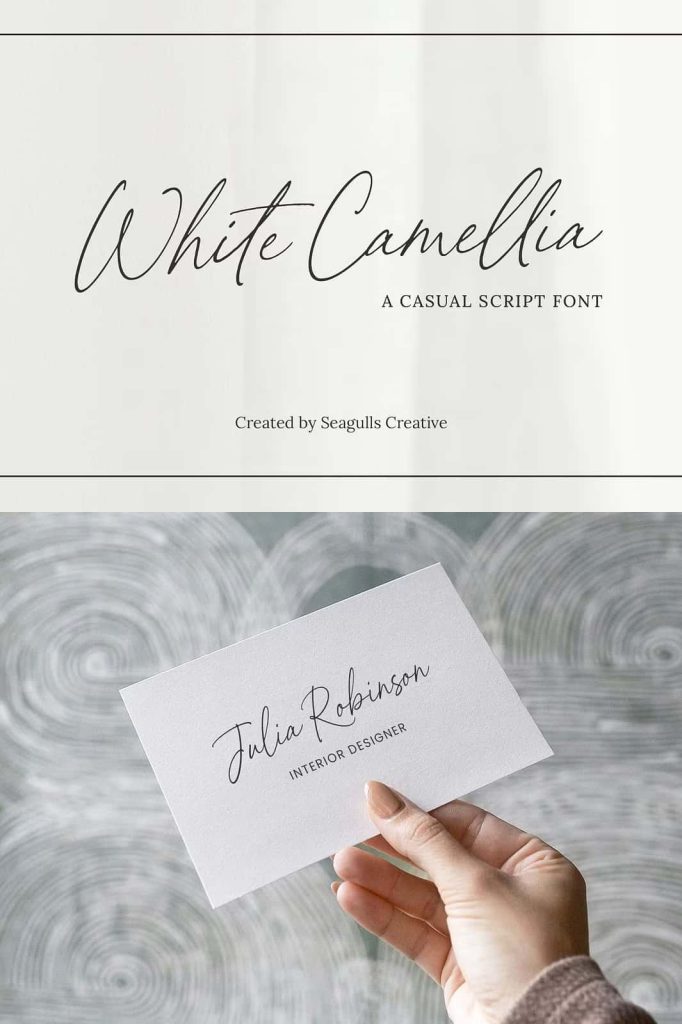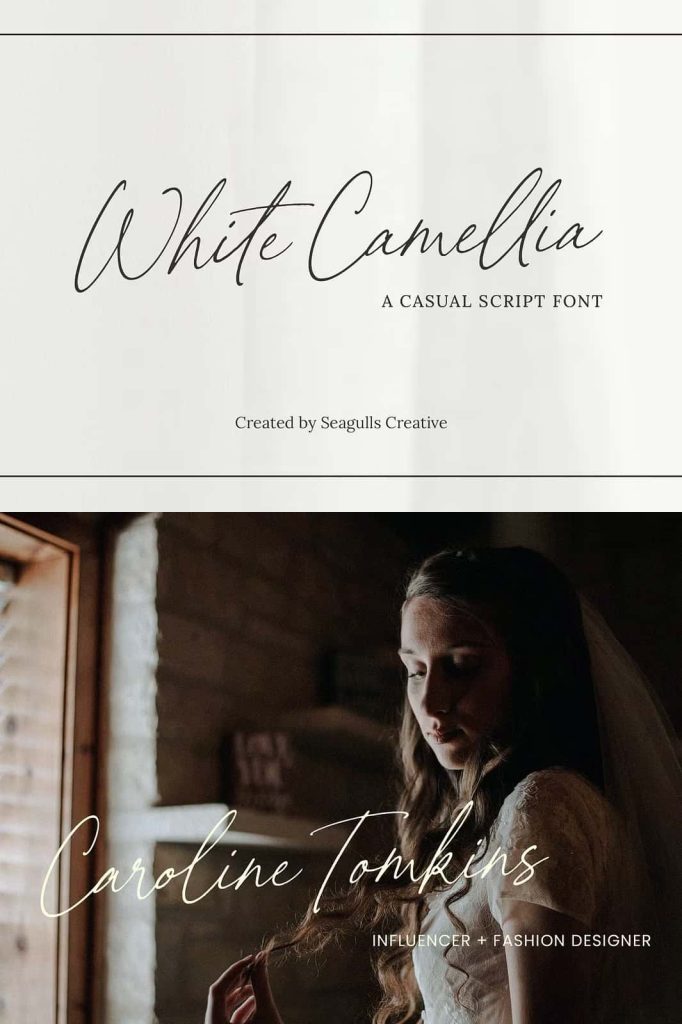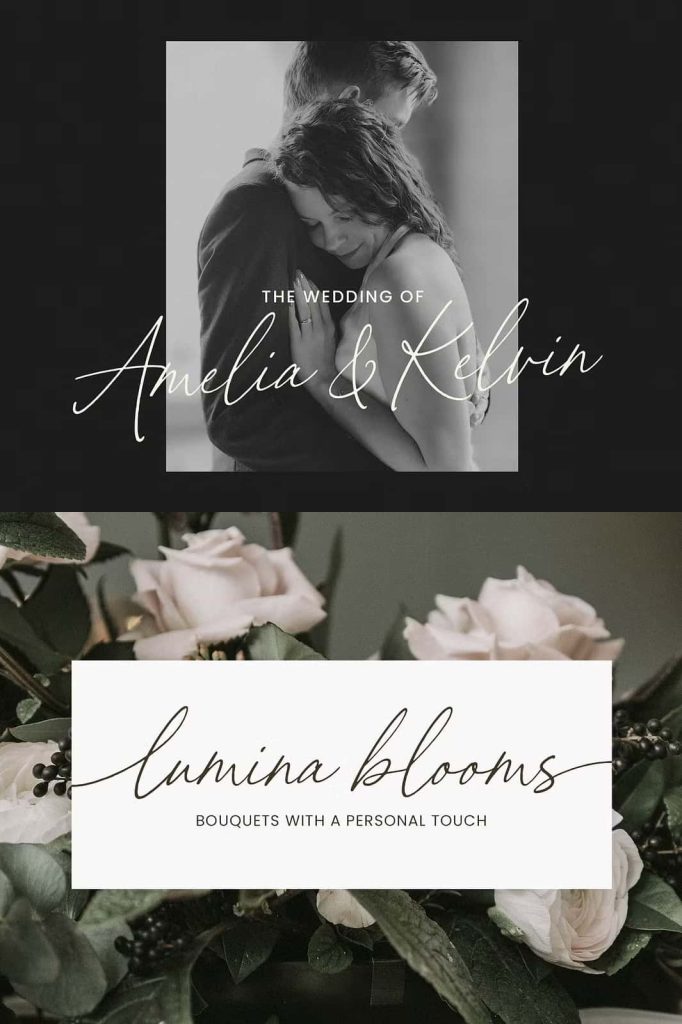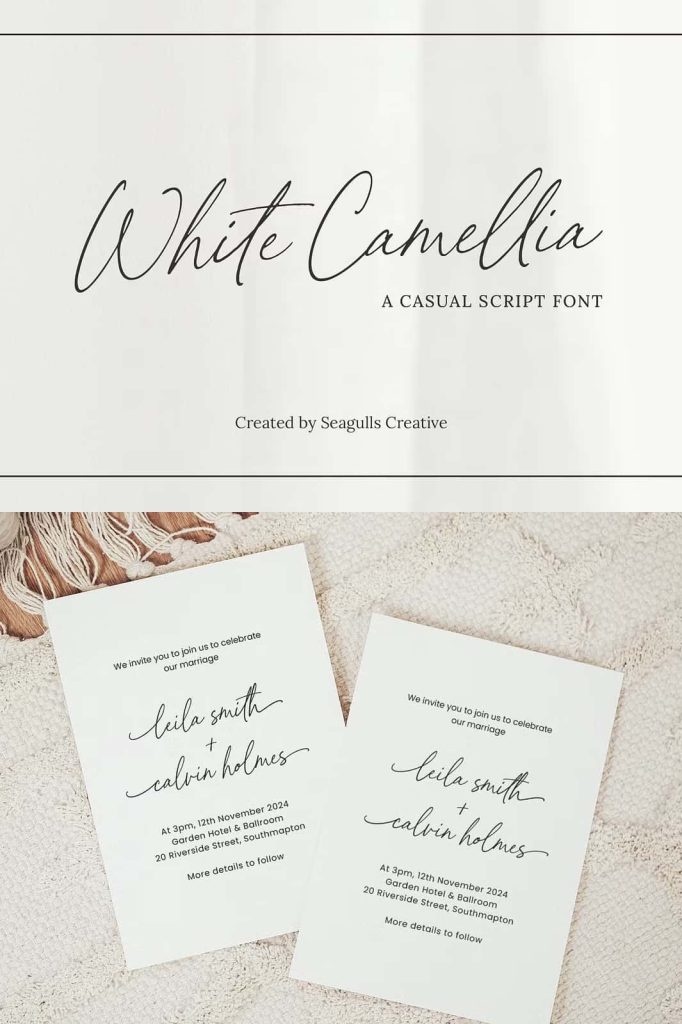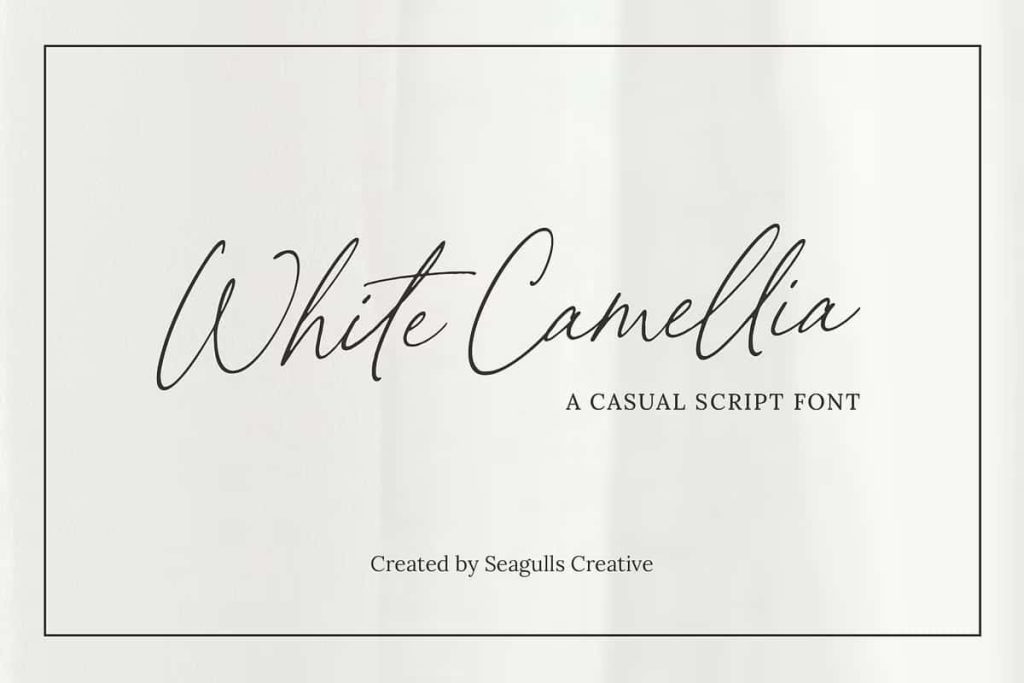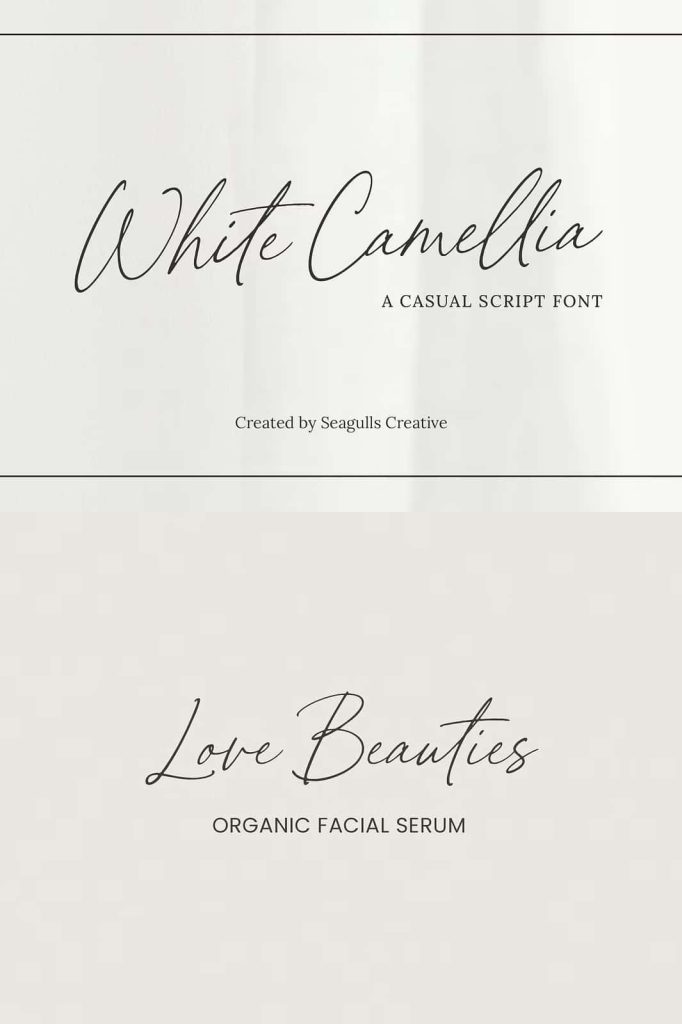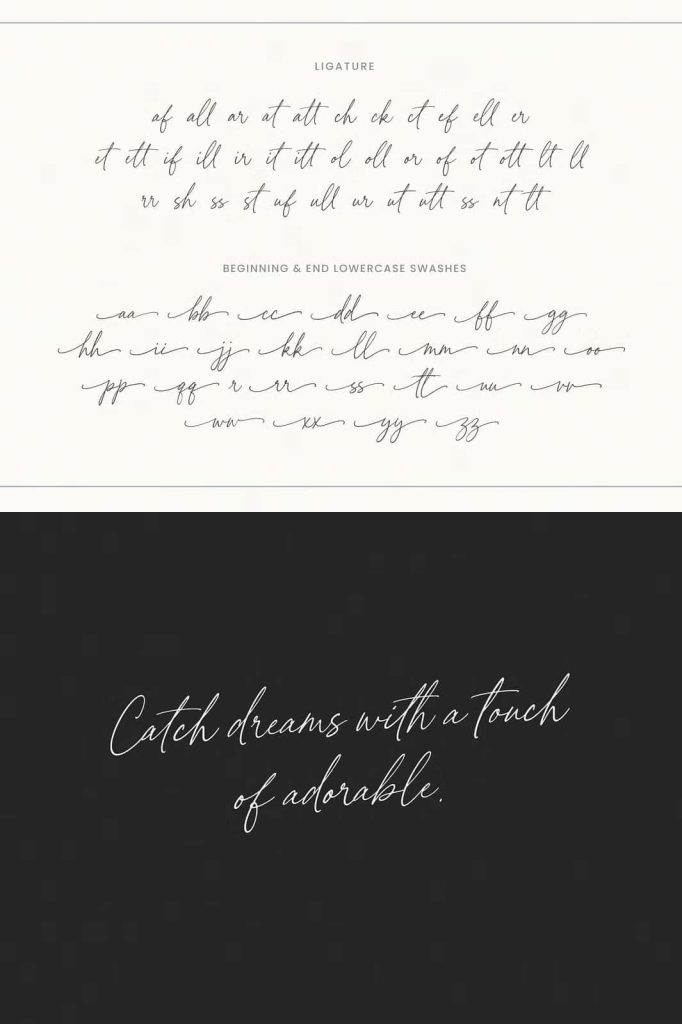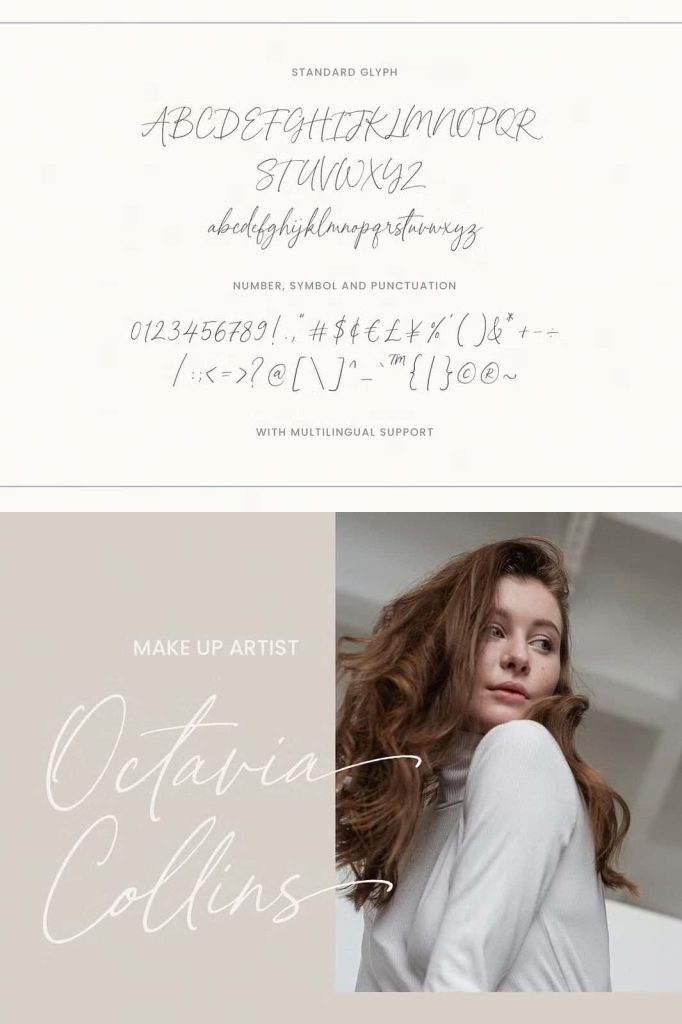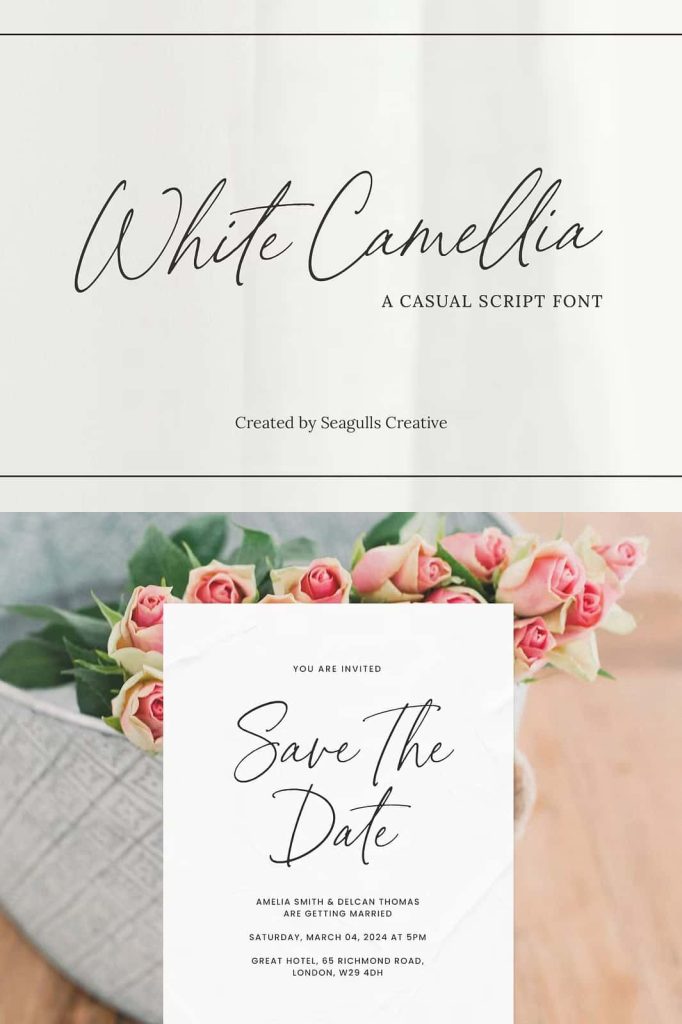
White Camellia Romantic Font: Graceful Typography for Elegant Creations
White Camellia is a romantic font that delivers elegance, softness, and refined beauty in every letter. Designers use this typeface to create visually captivating work that feels personal and sophisticated. Its flowing curves and delicate structure give each word a sense of movement and emotion, making it an excellent choice for projects that require a gentle yet confident tone.
This font does more than present text—it shapes the entire mood of a design. White Camellia helps creators build a strong visual identity that communicates warmth, charm, and attention to detail. Whether you want to design something intimate or luxurious, this font provides the perfect balance between artistic expression and clarity.
Perfect for Romantic and Wedding Designs
White Camellia excels in wedding-related projects, where elegance and emotion define the overall aesthetic. Designers often choose this font for invitations, save-the-date cards, RSVP designs, and wedding signage. Its graceful style enhances the romantic atmosphere, helping every piece feel meaningful and memorable.
The font also works beautifully for stationery that carries a personal touch. From handwritten-style notes to decorative paper goods, White Camellia transforms simple text into something visually engaging. Its refined appearance ensures that each design feels thoughtful and carefully crafted.
Elevate Branding with a Sophisticated Touch
White Camellia strengthens branding projects by adding a sense of elegance and identity. Businesses in fashion, beauty, lifestyle, and creative industries can use this font to communicate a premium and stylish image. Its soft yet distinctive letterforms allow brands to stand out while maintaining a professional look.
In logo design, White Camellia creates a unique and recognizable mark. Designers can use its flowing shapes to craft logos that feel timeless and expressive. The font adapts easily to different brand personalities, making it a reliable choice for both minimal and decorative concepts.
Enhance Photography and Social Media Content
White Camellia pairs naturally with photography, adding an elegant typographic layer to visual compositions. Photographers and content creators often use it to highlight quotes, captions, and branding elements on images. Its soft curves complement portraits, lifestyle shots, and artistic visuals, creating a cohesive and polished result.
On social media platforms, White Camellia helps designs stand out without overwhelming the content. Its refined style draws attention while maintaining harmony with the overall layout. Designers can use it to create posts that feel inviting, stylish, and consistent with a brand’s visual identity.
Versatile for Packaging and Product Design
White Camellia adapts seamlessly to packaging design, where presentation plays a crucial role in attracting customers. Its elegant appearance enhances product labels, boxes, and tags, giving items a premium and carefully designed look. This makes it especially effective for products that focus on beauty, romance, or luxury experiences.
In product design, the font adds a cohesive and polished touch to branding elements. Designers can apply it across different materials and formats, ensuring consistency in visual communication. Its versatility allows it to work across both physical and digital products without losing its charm.
Ideal for Advertising and Creative Projects
White Camellia supports a wide range of advertising and creative applications. Designers can use it in promotional materials, posters, and campaigns that require an elegant and emotional tone. Its expressive style helps capture attention and communicate messages effectively.
The font also performs well in artistic and romantic-themed projects, where creativity and storytelling take center stage. It allows designers to experiment with composition while maintaining a strong and cohesive look. This flexibility makes White Camellia a valuable tool for both professional and personal design work.
Create Lasting Impressions with Elegant Typography
White Camellia empowers designers to create work that feels refined, expressive, and memorable. Its romantic character, combined with its versatility, makes it suitable for a wide variety of projects. From weddings and branding to packaging and digital content, the font consistently delivers a polished and engaging result.
By choosing White Camellia, you bring elegance and personality into your designs. It transforms ordinary text into a visual experience that connects with audiences and leaves a lasting impression. This font stands as a reliable choice for anyone who wants to create beautiful and meaningful design work.